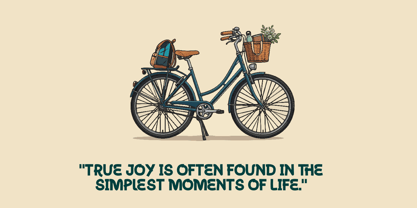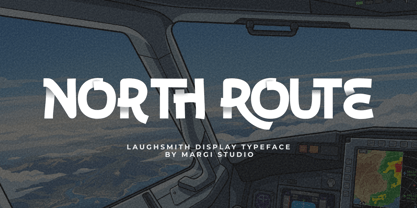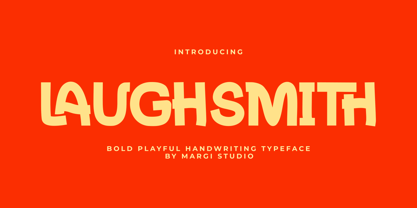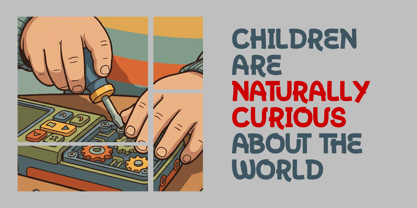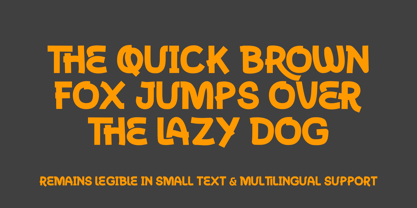
Laughsmith
The Laughsmith Font Family was designed by Muhammad Amal and published by Margi Studio. Laughsmith contains 1 styles. More about this family
Laughsmith – A Quirky & Playful Display Font
Meet your new favorite playful typography! Laughsmith is a bold, quirky display font designed to inject fun, energy, and personality into any project. With its unique, bouncy character and friendly curves, this typeface instantly grabs attention while maintaining a warm and approachable vibe.
Breaking away from rigid, traditional shapes, this sans-serif boasts creative, asymmetrical letterforms—notice the playful, looping tail of the 'Q', the stylized crossbars on the 'E', and the dynamic leg of the 'R'. Despite its highly decorative and whimsical nature, Laughsmith has been meticulously crafted to ensure excellent legibility, meaning your message stays crystal clear even when scaled down to smaller point sizes.
Perfectly suited for a wide range of creative endeavors, this font is the ideal choice for:
• Children's books and illustrations
• Vibrant poster designs and flyers
• Indie game UI and fantasy branding
• Snack packaging and casual merchandise
• Cartoon logos and eye-catching headlines
Key Features:
• Highly Legible: Carefully balanced spacing and proportions keep small text readable.
• Multilingual Support: Equipped with an extensive character set to bring your designs to a global audience.
• Versatile Weight: Thick and bold enough for striking headlines, yet clean enough for subtext.
Add a splash of joy, creativity, and legibility to your next design project with Laughsmith!